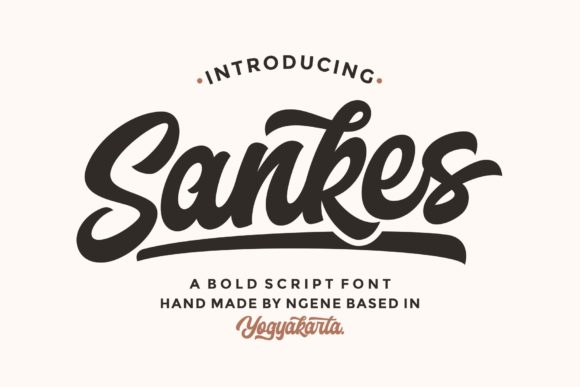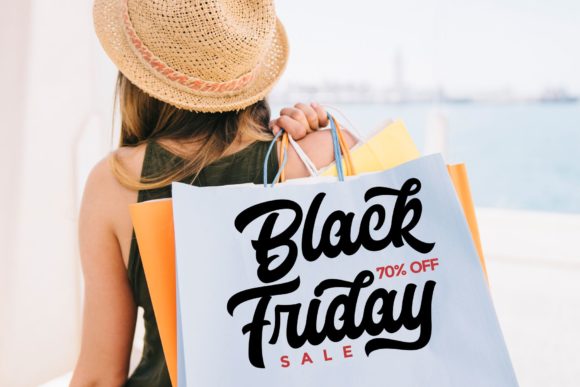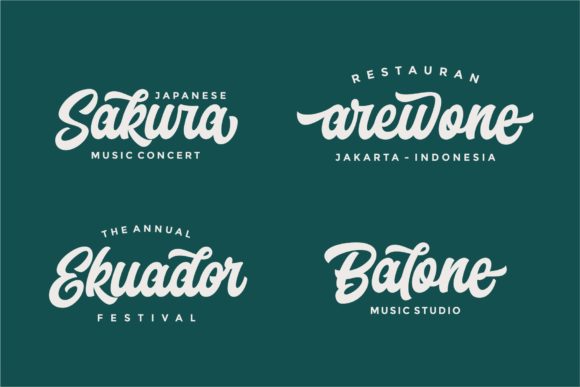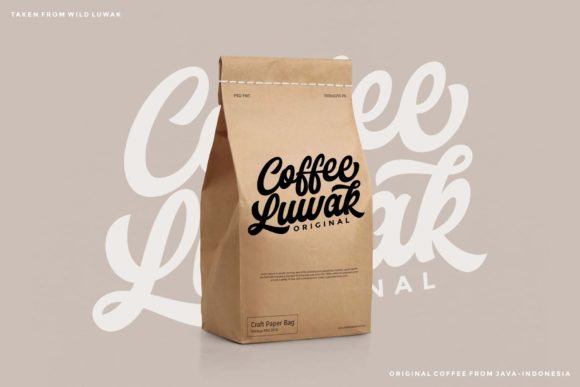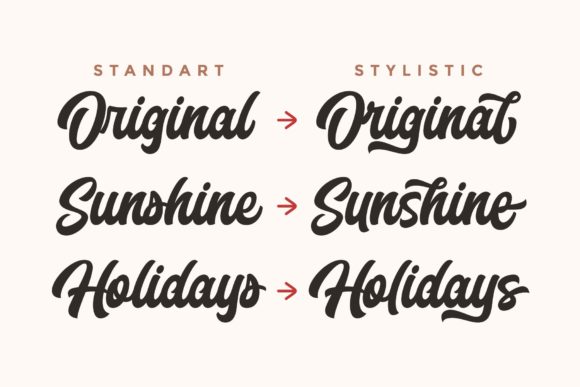
Sankes Font
About Sankes Font
Sankes is a casual, fun script font, created by using a marker. Clean and a little bit quirky, this font is the perfect fit for all of your logos, branding, social media, and crafty DIY projects.